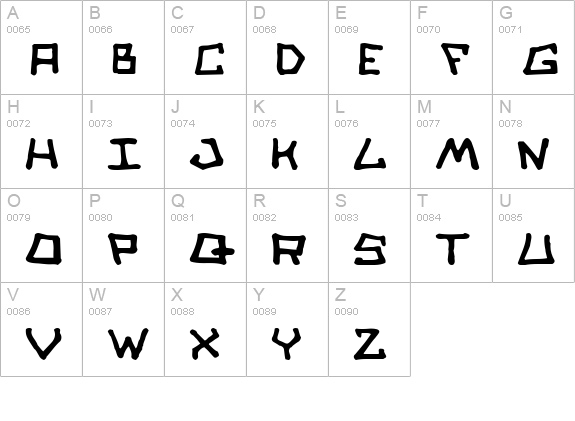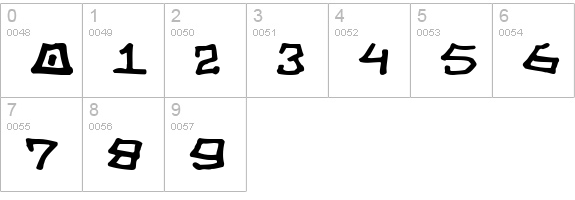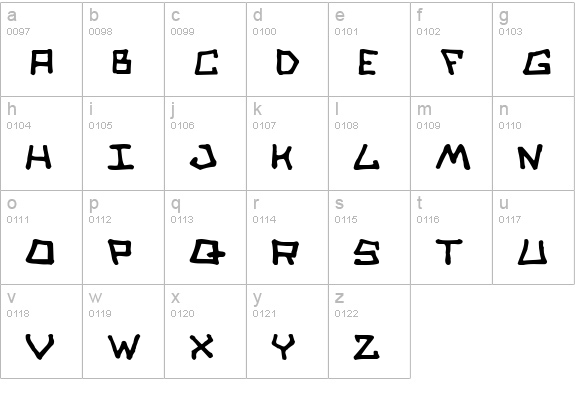
Skull Salad Font Details
Skull Salad font is a captivating and edgy typeface that is sure to make a bold statement in your designs. With its unique combination of sharp angles and playful curves, this font exudes a sense of rebelliousness and intrigue. Designed with attention to detail, Skull Salad font is perfect for projects that require a touch of darkness and mystery. Whether you're designing a horror-themed poster, a gothic-inspired logo, or a punk rock album cover, this font will add a distinctive and powerful element to your work. But what sets Skull Salad font apart is its accessibility - it is freely available to download at FontsMarket.com. Embracing the belief that creativity should be unrestricted, the creators of Skull Salad font have made it accessible to all, ensuring that designers of all backgrounds and budgets can benefit from its striking visual impact. With a wide range of characters and symbols, Skull Salad font offers versatility and flexibility in your designs. Its bold and sharp appearance is complemented by a hint of playfulness, making it suitable for a variety of design projects. From eye-catching headlines to attention-grabbing logos, this font will effortlessly captivate your audience. Download Skull Salad font for free at FontsMarket.com and unleash your creativity without any limitations. Whether you're a professional designer or simply someone looking to jazz up your personal projects, this font will undoubtedly leave a lasting impression. Embrace the darkness, embrace the freedom, and let Skull Salad font be the key to unlocking your design's true potential.